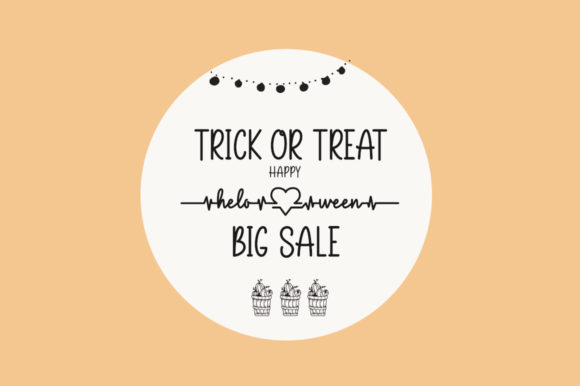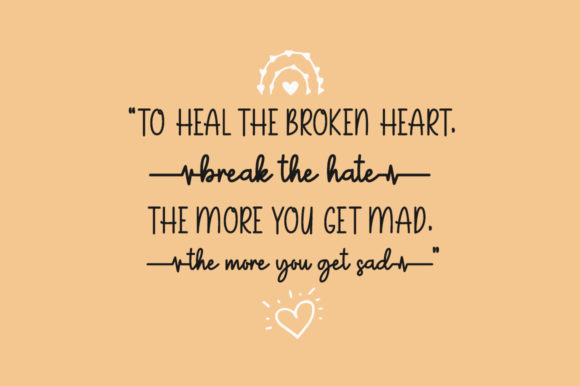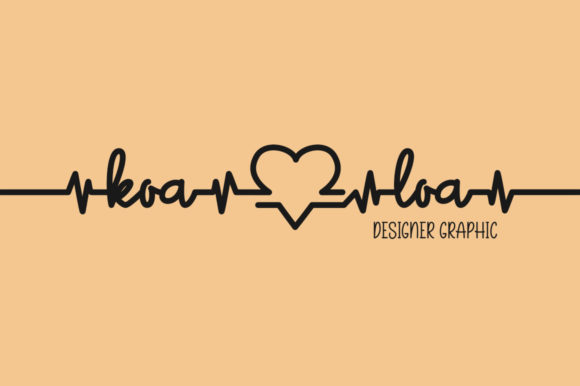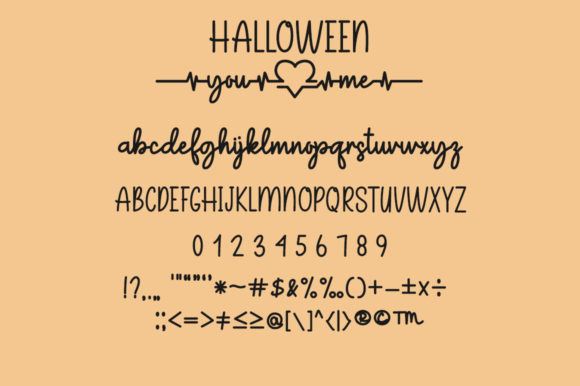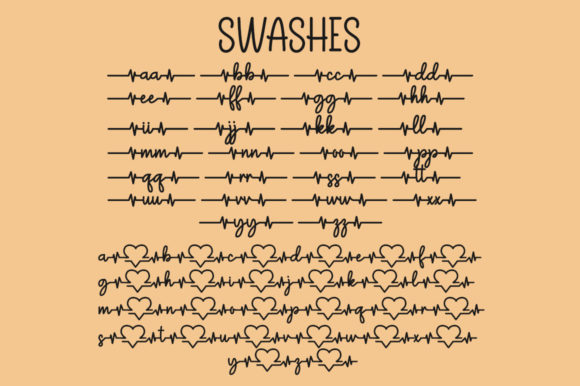
About Halloween You Me Font
Halloween You Me is a cute and delicate handwritten font. This font is PUA encoded which means you can access all of the glyphs and swashes with ease!